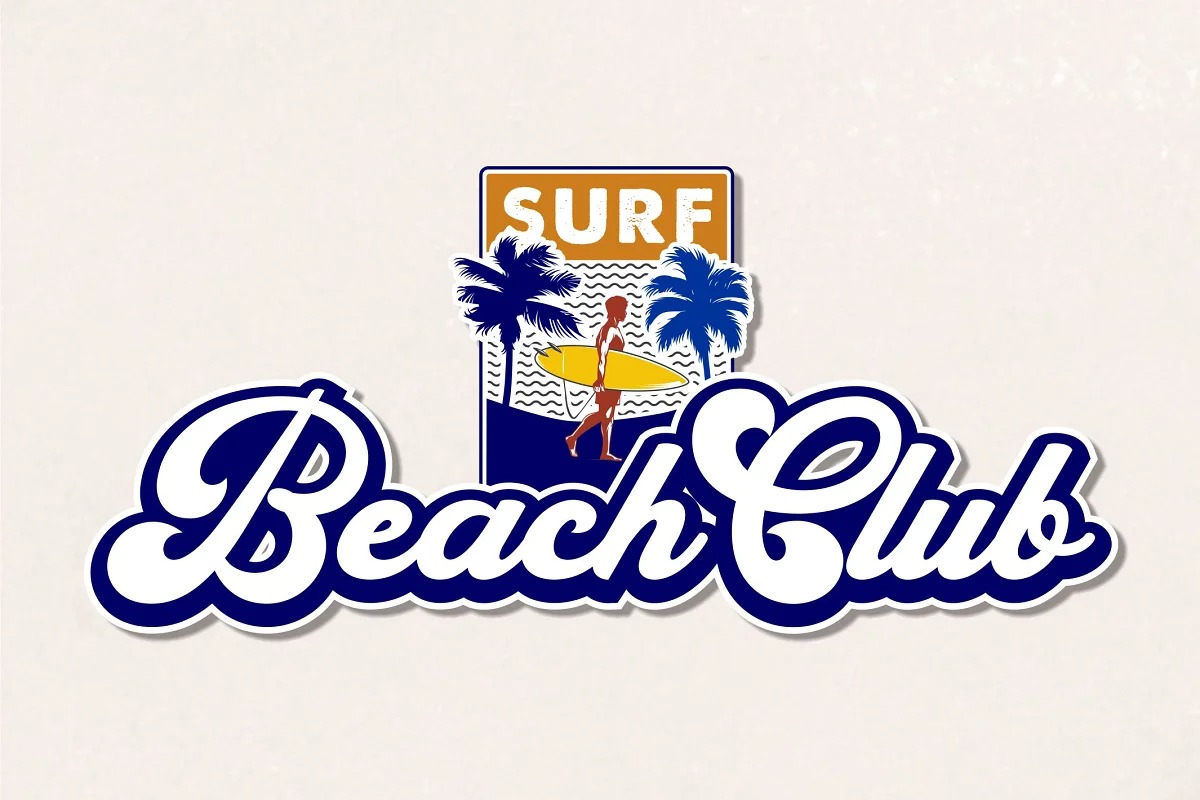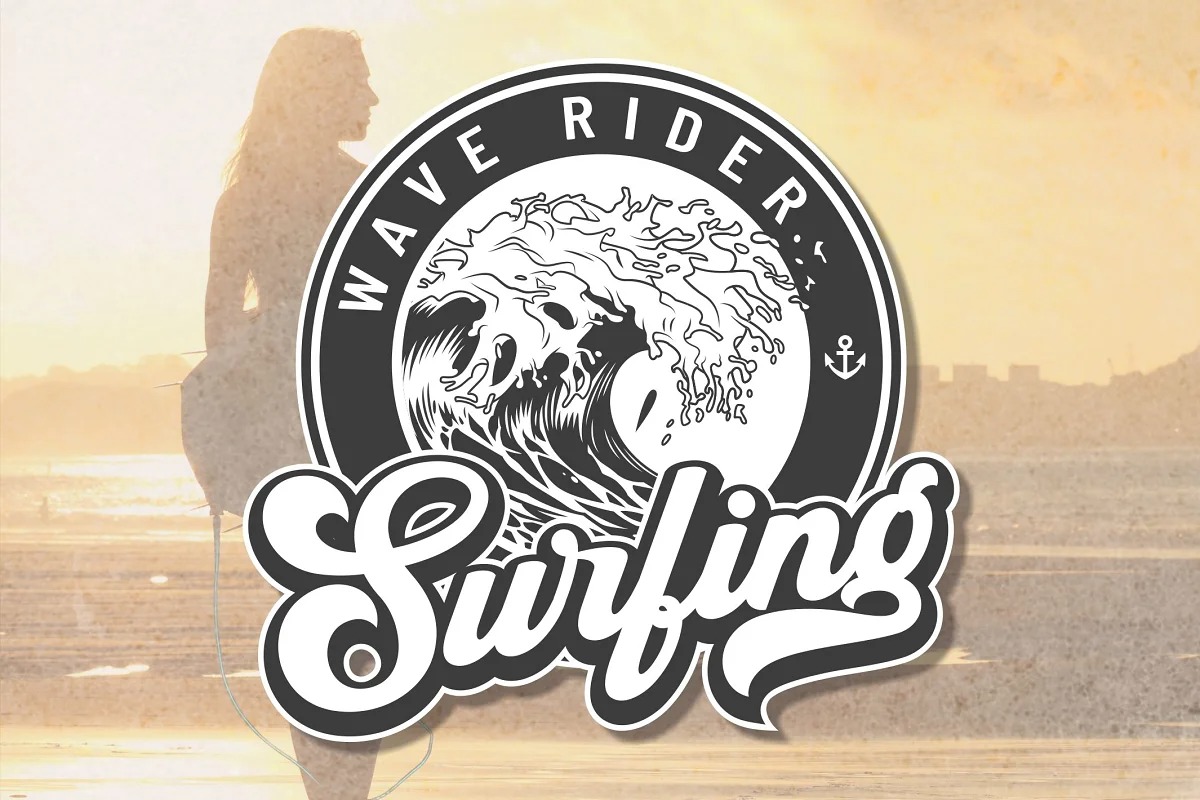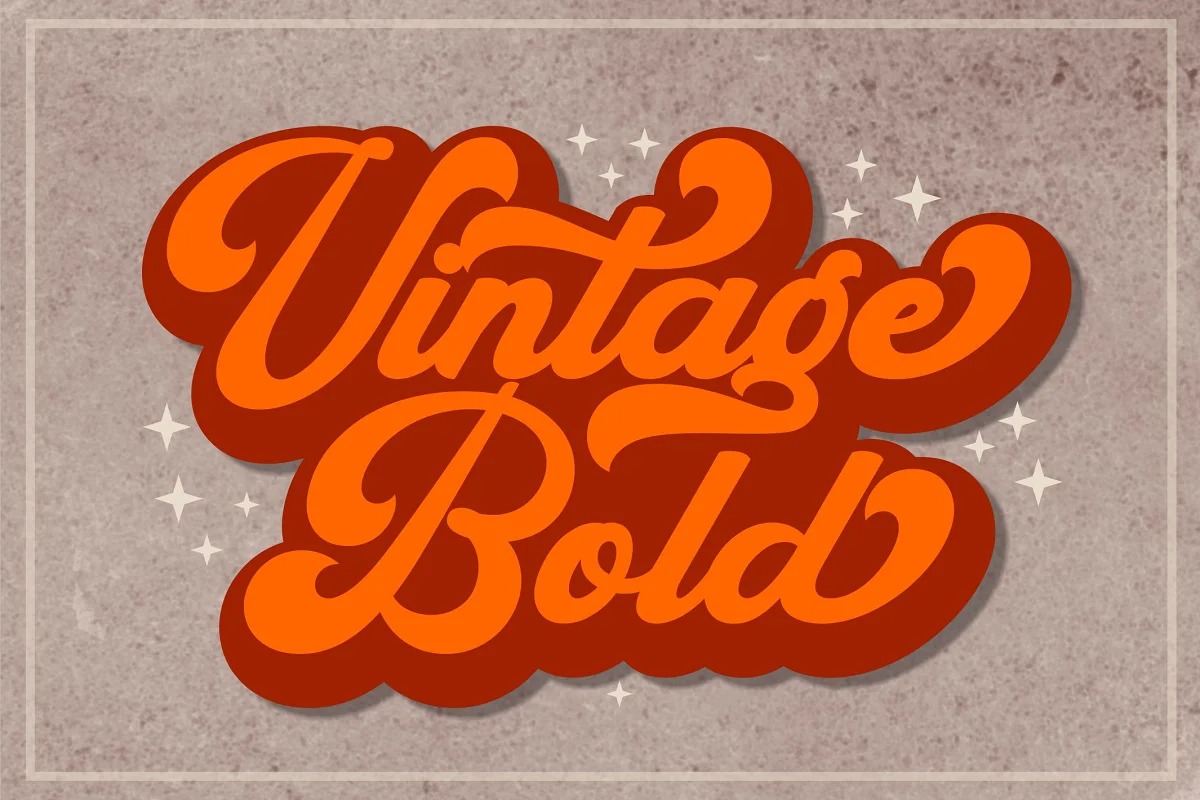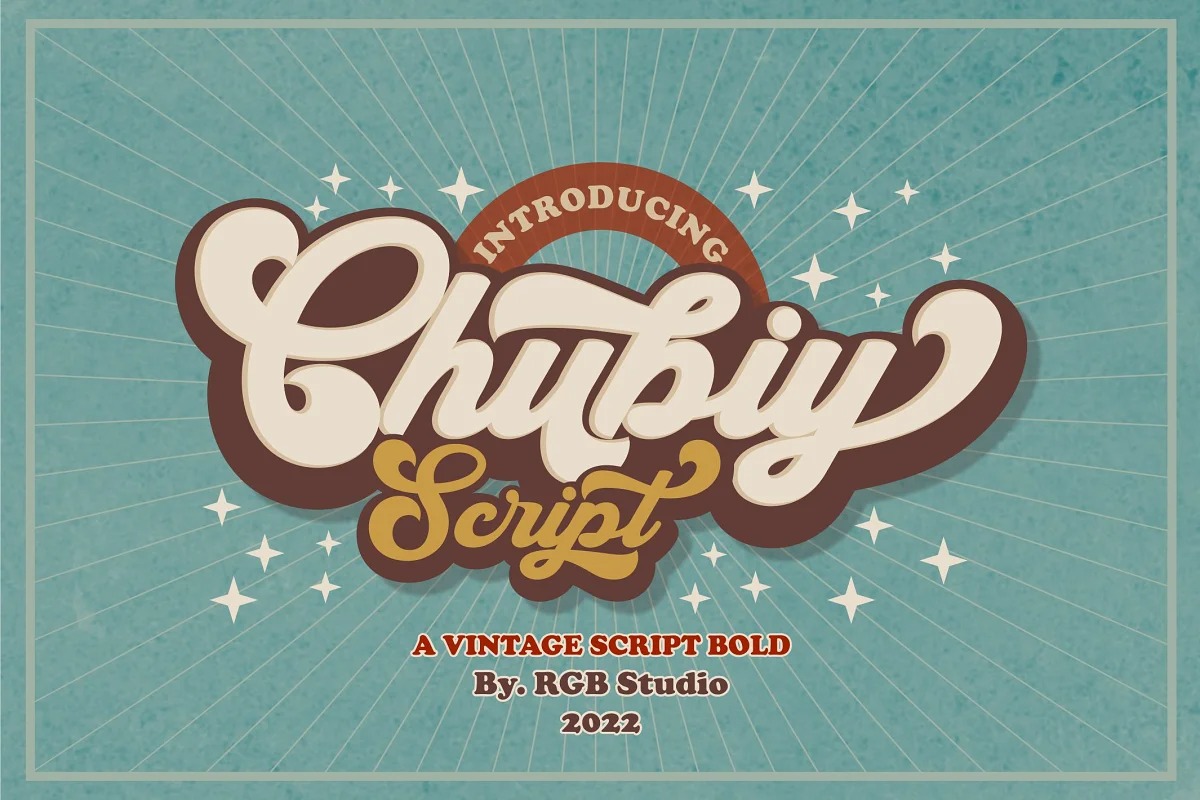
Chubiy Script Font is a retro styled Typeface created by RGB Studio with a stunning style that can make the most of your design projects. This font gives a touch of retro style that was famous in the 60-70s. This font perfect for vintage and retro design, badge, logos,t-shirt, poster, branding, packaging, signage, book coverand so much more!